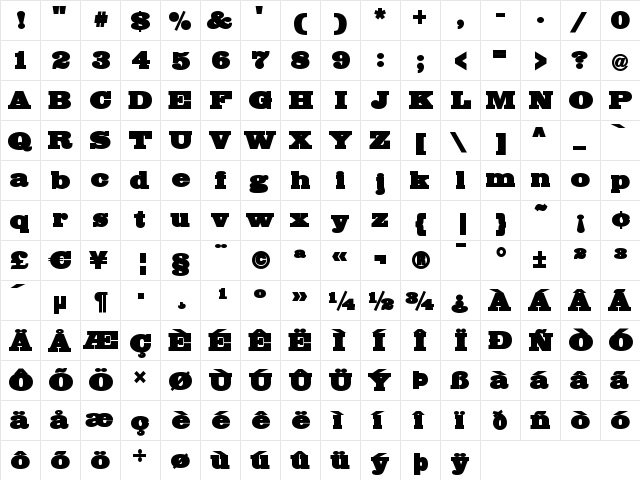
BigMummy Regular Font Preview
BigMummy Regular
BigMummy Regular Font Details
Design Context for BigMummy Typeface
BigMummy offers clean, dependable letterforms without strong stylistic allegiance, making it a practical choice for designers who need flexibility.